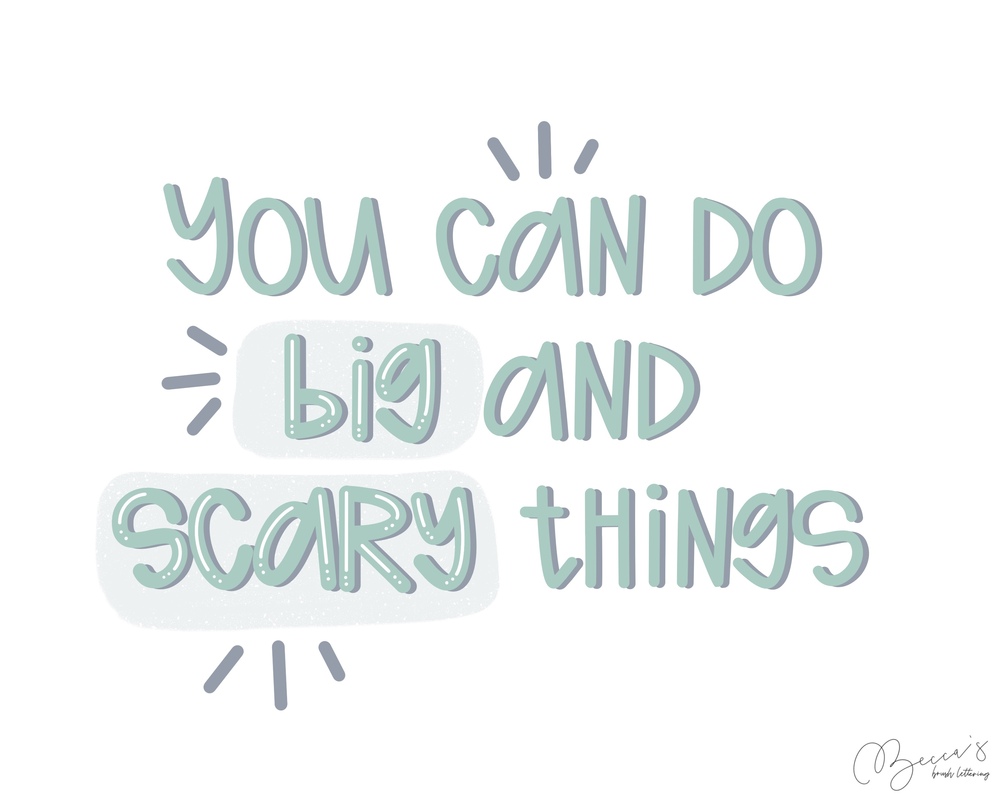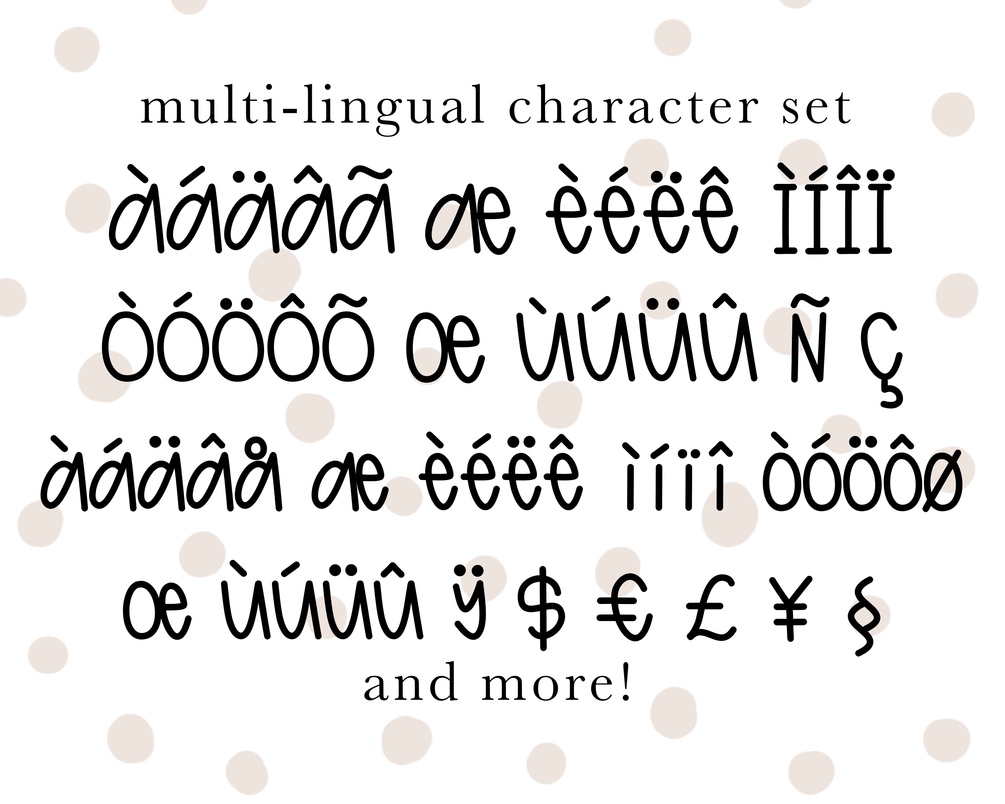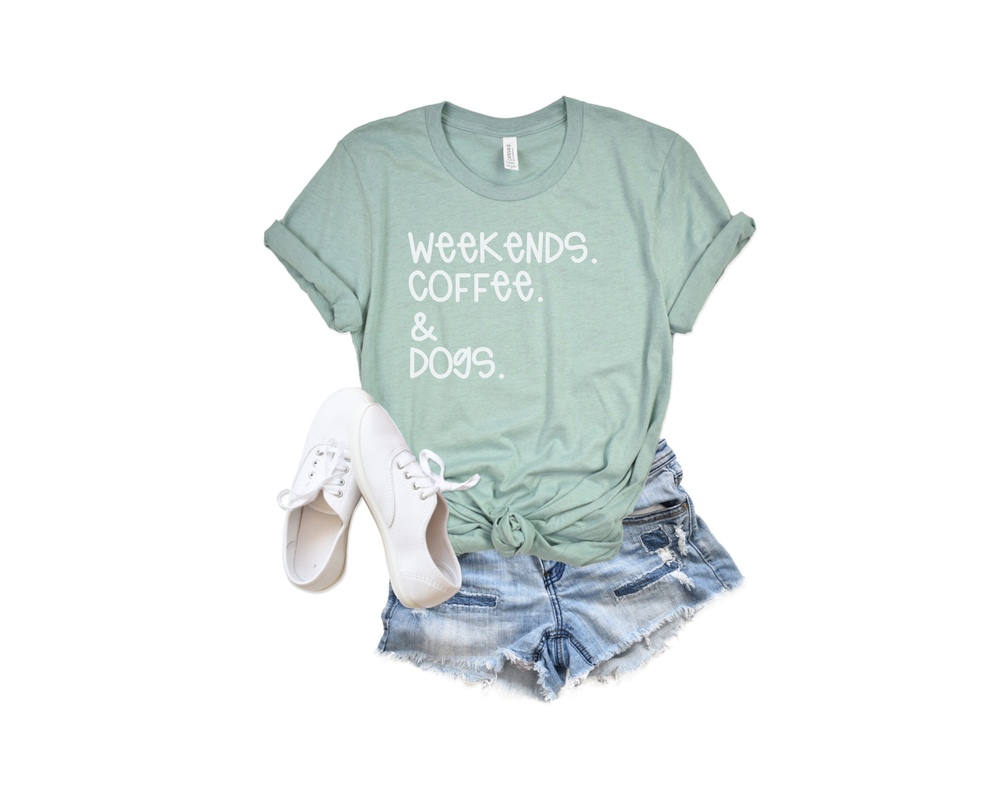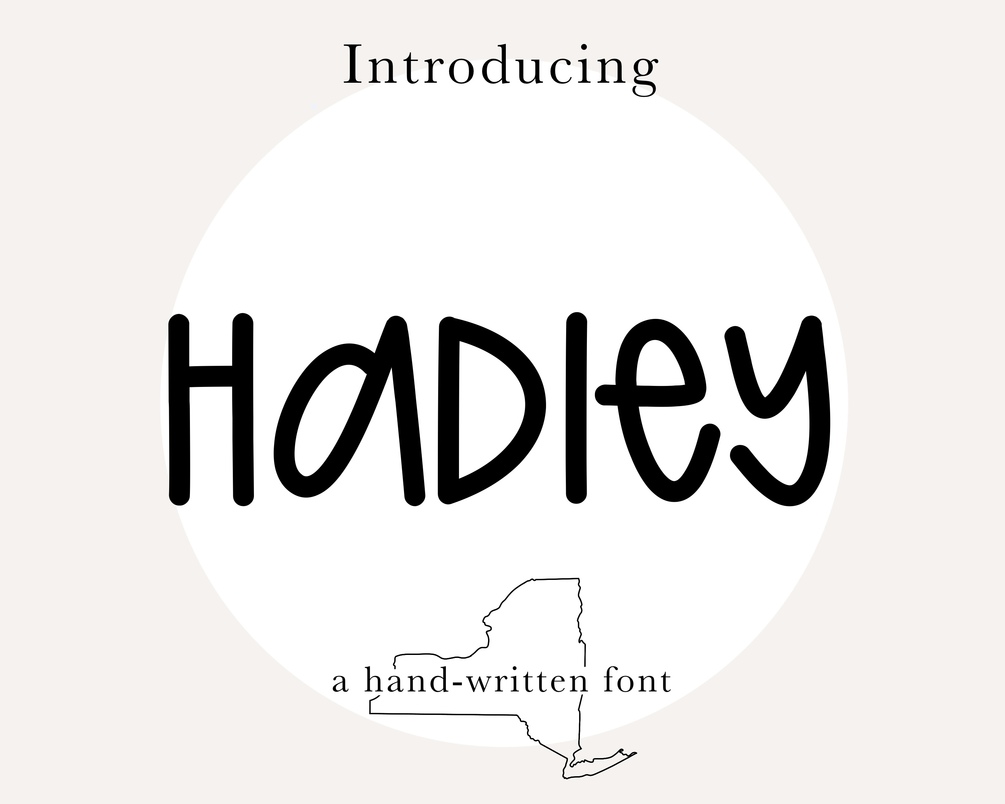
A cute, mixed capital, handwritten, sans serif font!
HADLEY FONT- a handwritten, mixed capital, sans serif TTF font that includes a full set of upper and lower case letters, multilingual symbols, numbers, punctuation, and more
HADLEY BOLD FONT- bold version of "Hadley" (TTF file format) so you can pack in that extra emphasis while working!
Includes standard English characters and multi-lingual support for many accents